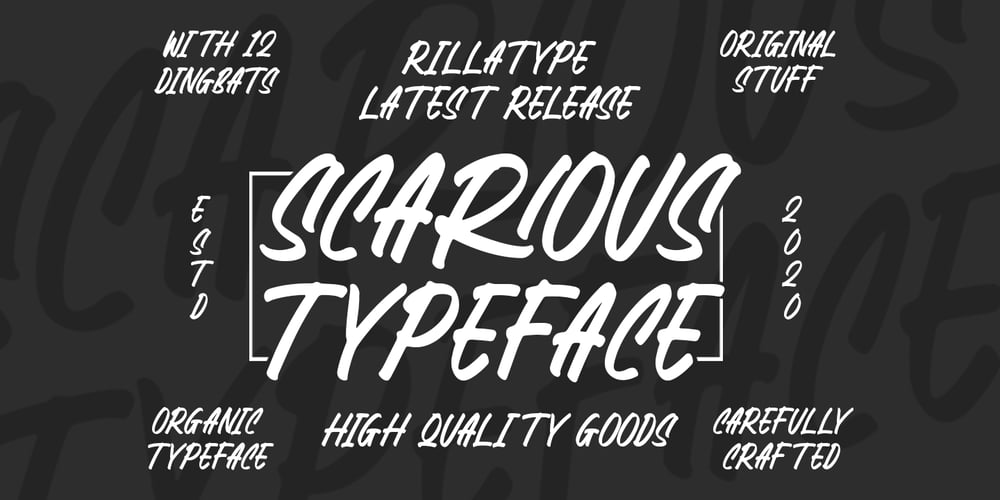
Scarious
Scarious font
Scarious Font Family was designed by Gustian Agung Asprilla and published by Rillatype. Scarious contains 1 styles and family package options. Scarious is perfectly made to be applied for logos, logotype, magazines, book, branding, packaging, fashion, stationary, novel, display use and more.if you have any other question feel free to hit us on rillatype@gmail.com